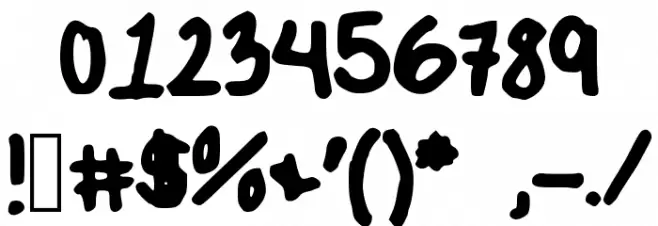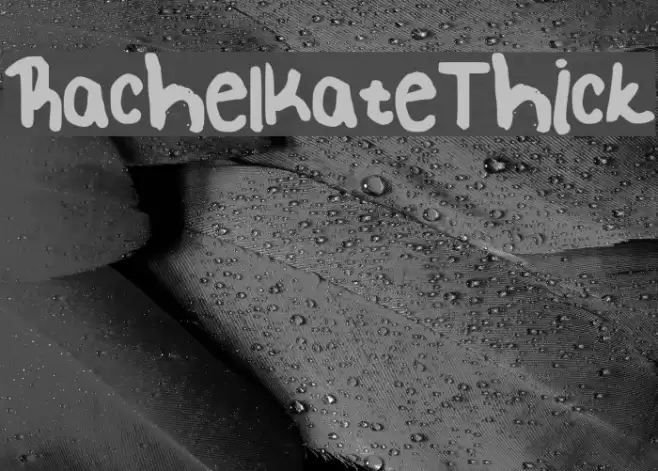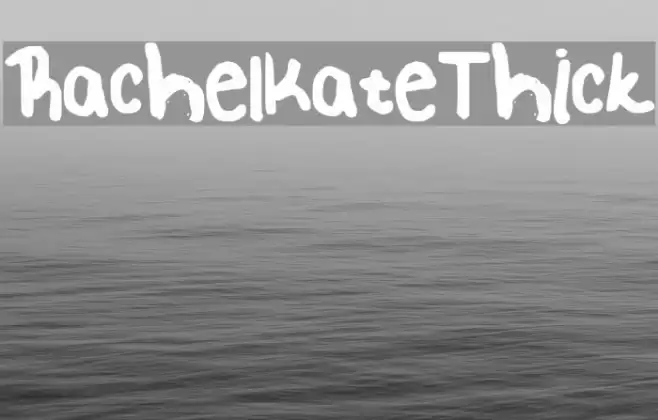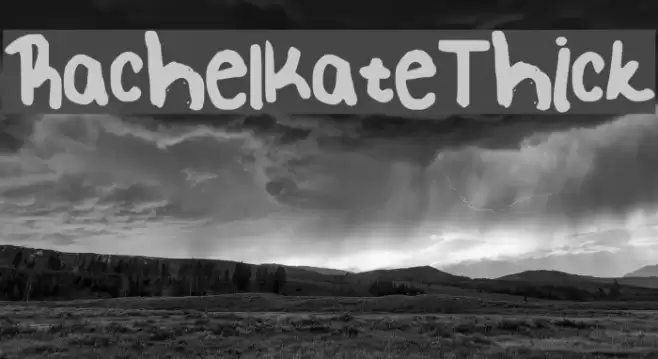
Rachel_Kate_Thick Font
Rachel_Kate_Thick Description
This font features a bold, playful style with a hand-drawn appearance. The characters are thick and rounded, giving it a friendly and approachable feel. The uppercase and lowercase letters maintain a consistent weight, and the numbers are equally bold, ensuring readability. Special characters are creatively designed, adding to the font's whimsical nature. The overall look is casual and informal, making it suitable for projects that require a touch of personality and warmth.
| Overall Style | Casual, Playful |
| Proposed Projects | Ideal for children's books, playful branding, casual invitations, and creative posters. |